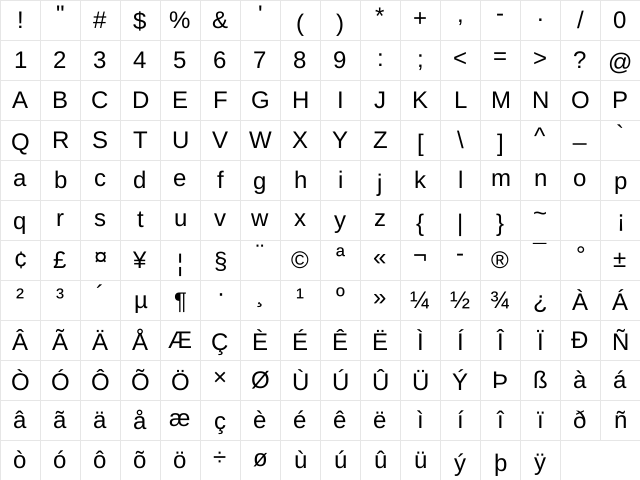
Arimo Regular
Foundry: Monotype Imaging Inc.
Designer: Steve Matteson
Complete Arimo Regular glyph index. Displaying only characters natively supported by Arimo Regular font.
Design Context for Arimo
Arimo is a composed and adaptable typeface that performs quietly and consistently across a wide range of design contexts.